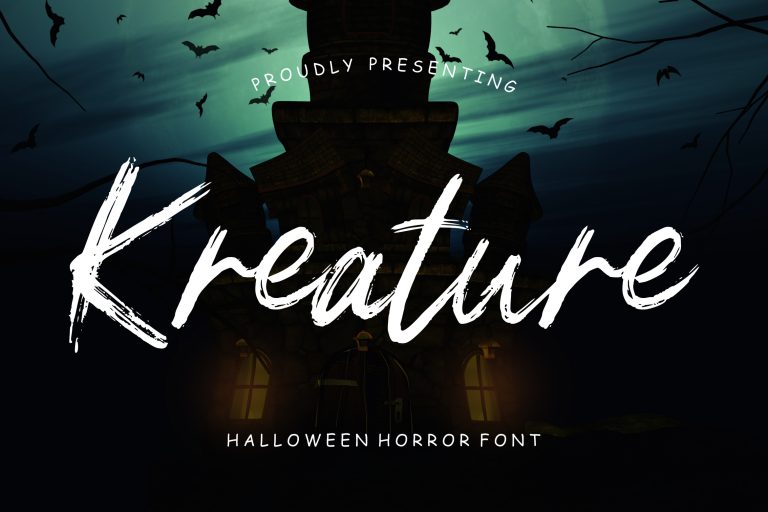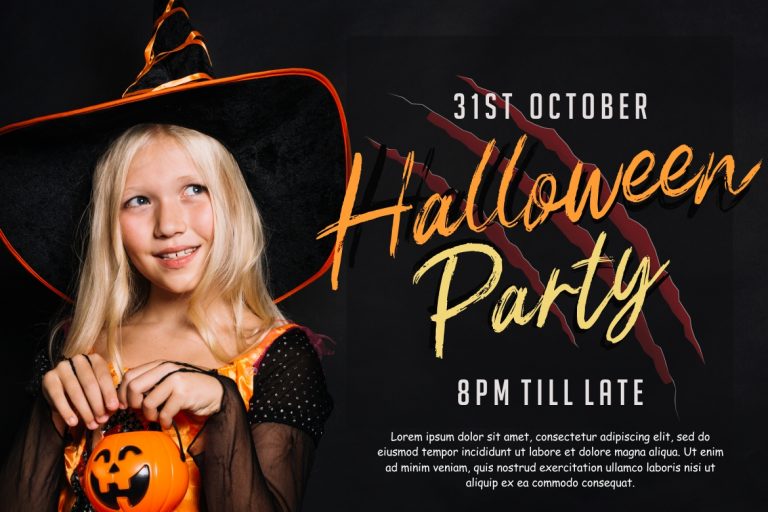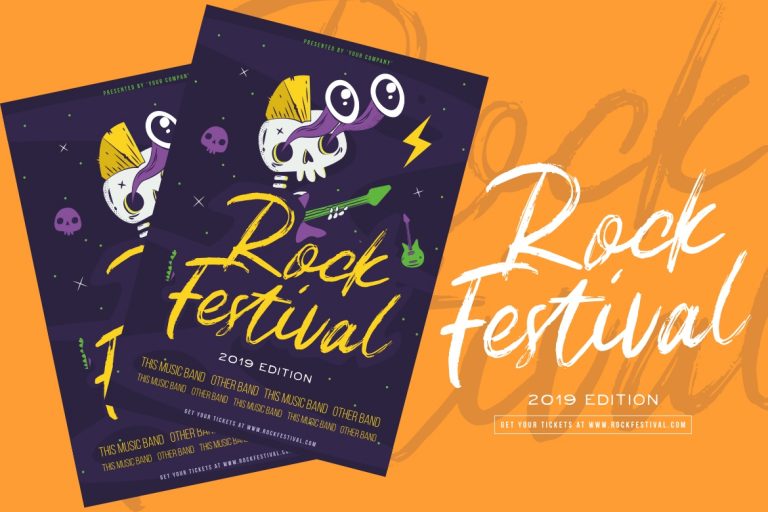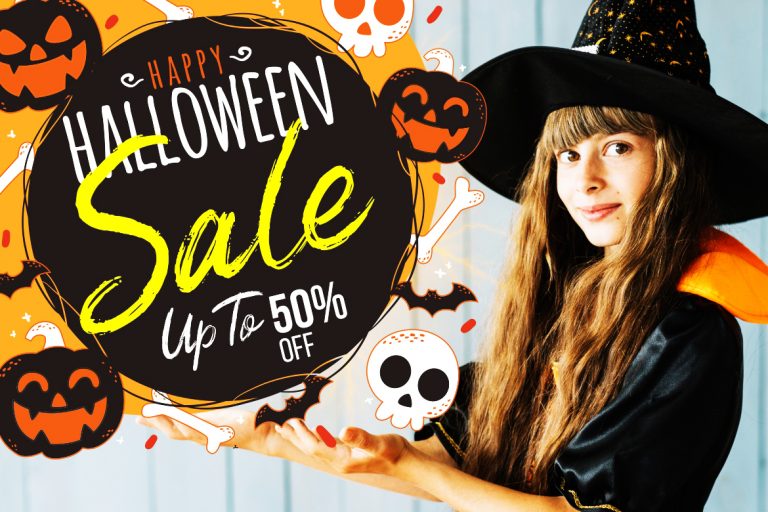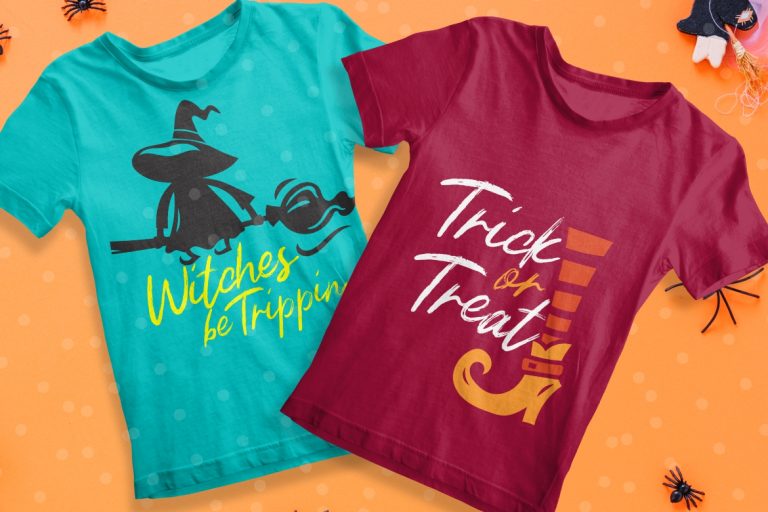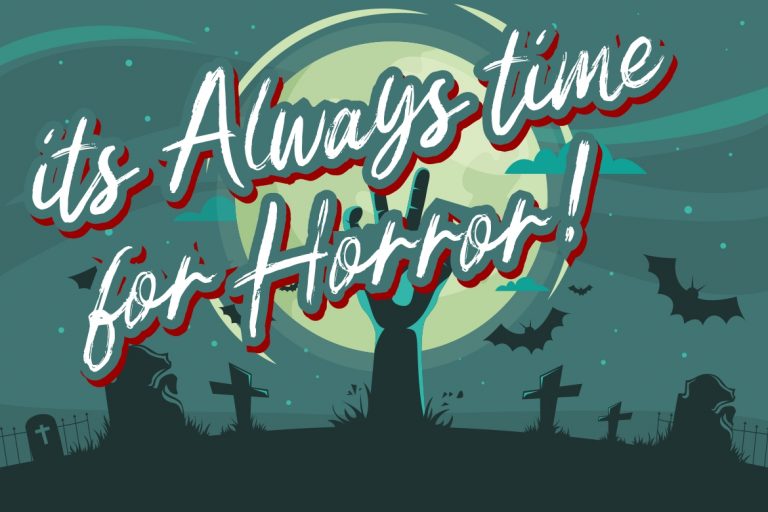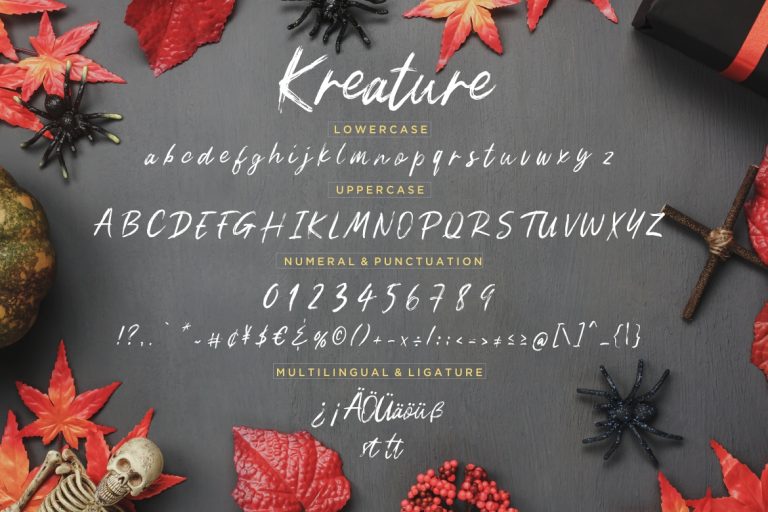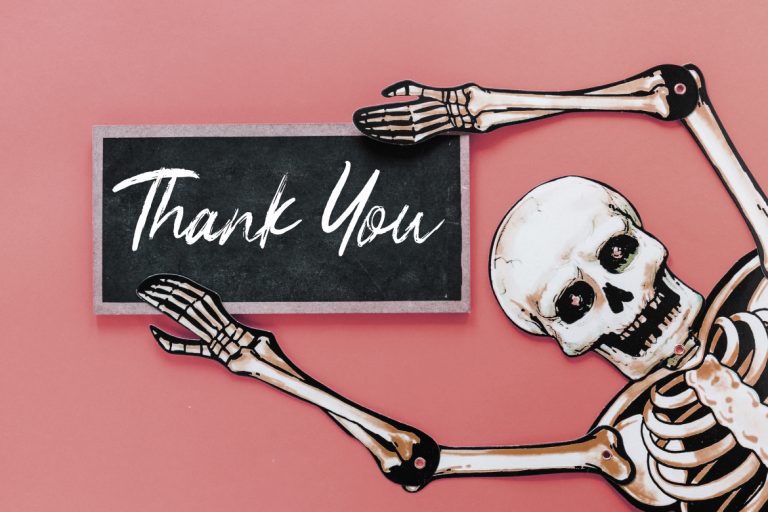
Kreature Halloween Horror
Kreature is hand brush script that natural horror looks, perfect for halloween event poster and flyer.
Kreature is perfect for branding projects, logo, wedding designs, social media posts, advertisements, product packaging, product designs, label, photography, watermark, invitation, stationery and any projects that need handwriting taste.
- Fonts include multilingual support for; ä ö ü Ä Ö Ü ß ¿ ¡